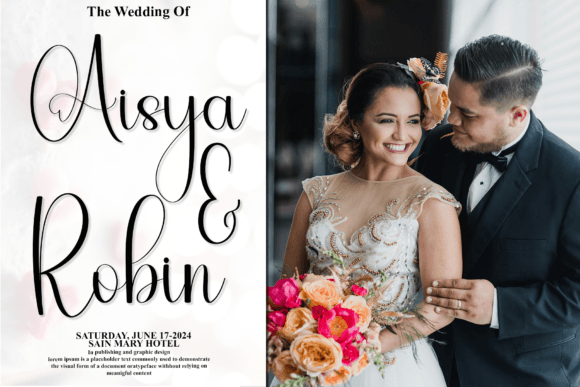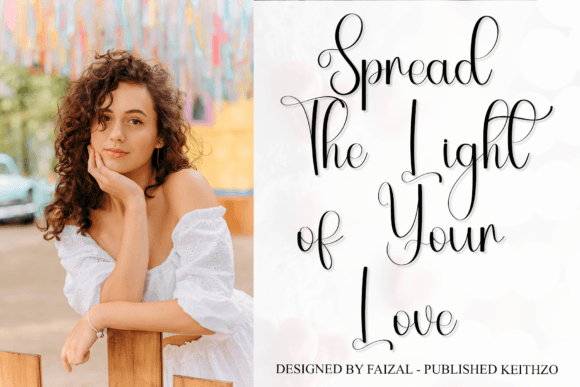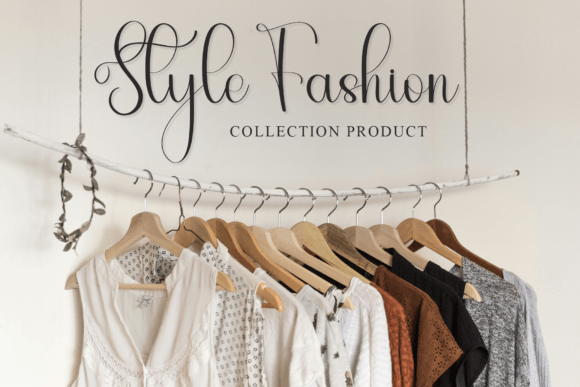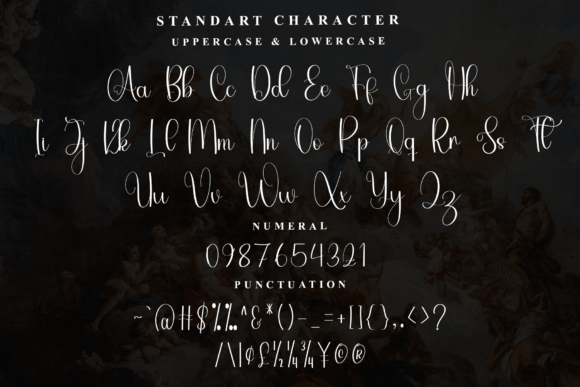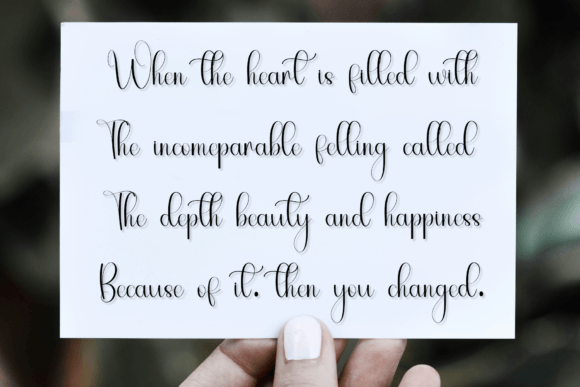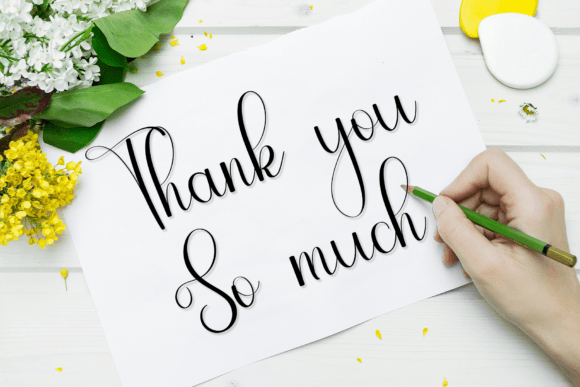
Introduction to Mandalika Signature Font Font
Fonts play a crucial role in design, and the Mandalika Signature Font font is a typeface that brings both character and versatility to any project. Whether you’re working on a branding project, a website, or a print design, the Mandalika Signature Font font offers a unique style that can elevate your work.
Mandalika Signature is a charming handwritten font imbued with a sense of freshness and casual elegance.
Its fluid strokes and organic lines evoke a laid-back vibe, making it perfect for various design projects Whether used for branding, invitations, or social media graphics, Angela adds a touch of warmth and personality.
Key Features of Mandalika Signature Font Font
Why Choose Mandalika Signature Font Font?
The Mandalika Signature Font font is more than just a typeface – it’s a design tool that helps you communicate your message with style and clarity. Its unique character set and versatile design make it suitable for a wide range of applications, from elegant invitations to bold headlines.
With its carefully crafted letterforms and balanced proportions, the Mandalika Signature Font font ensures readability and visual appeal across all mediums.
What makes Mandalika Signature Font font special?
The Mandalika Signature Font font stands out with its unique design, exceptional readability, and versatility across various design applications.